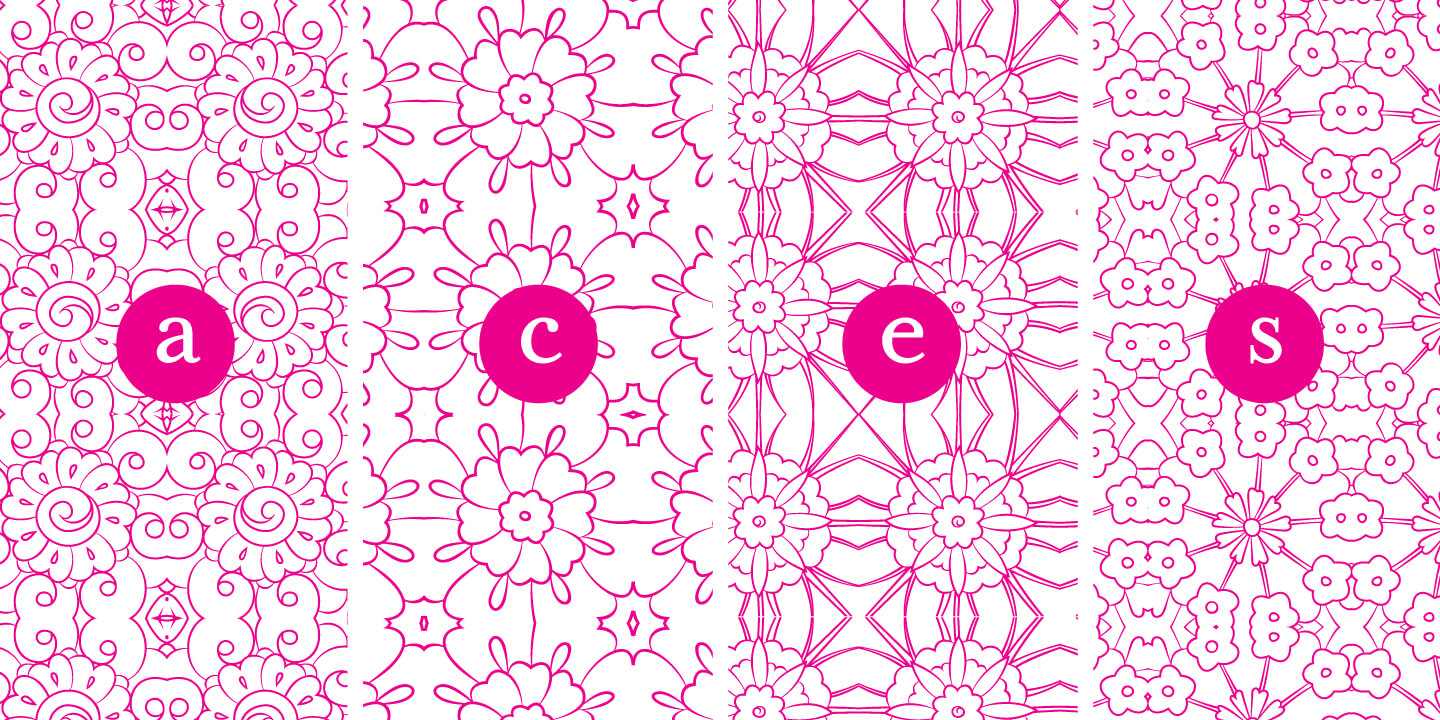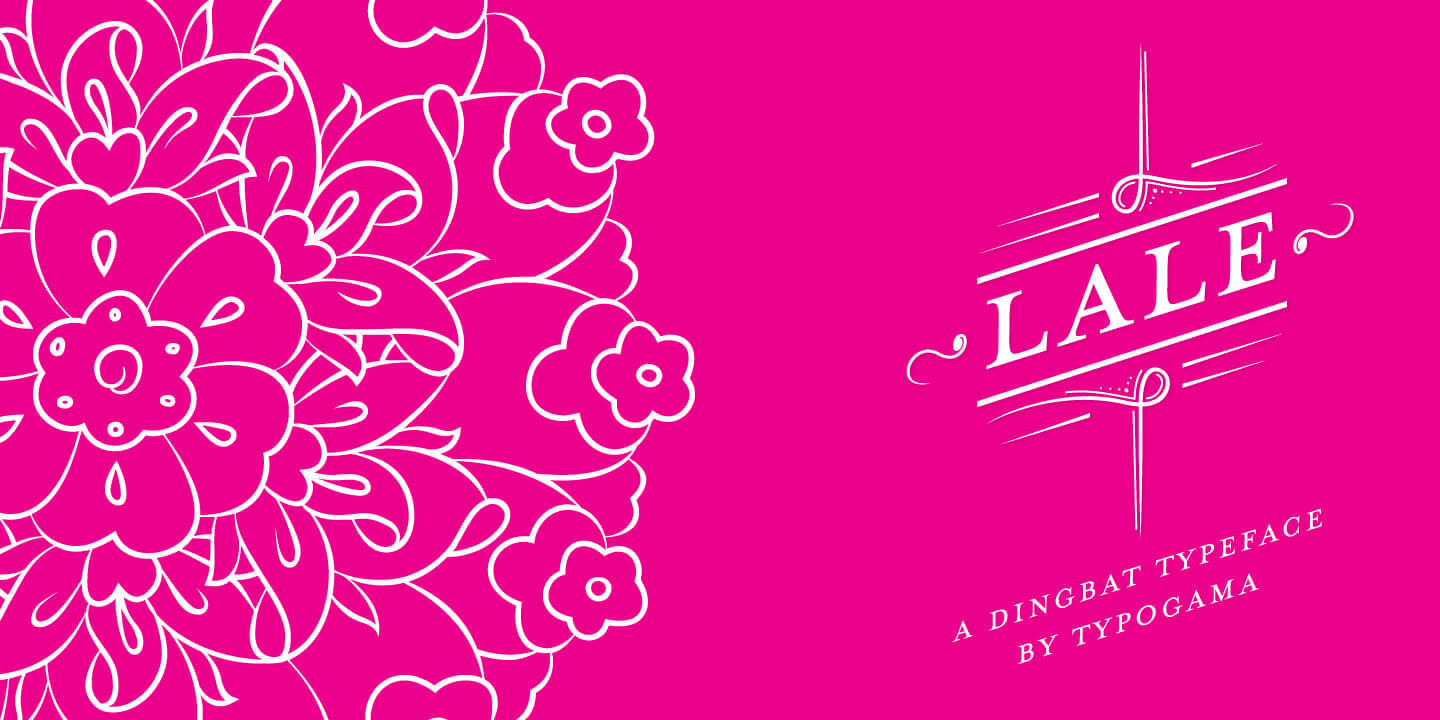
Lale
About Lale
With the design of the Lale dingbat typeface, my aim was to use Opentype technology to enhance the possibilities of ‘picture’ fonts. By combining the substitution features included in ligatures, this font does not only offer the basic…